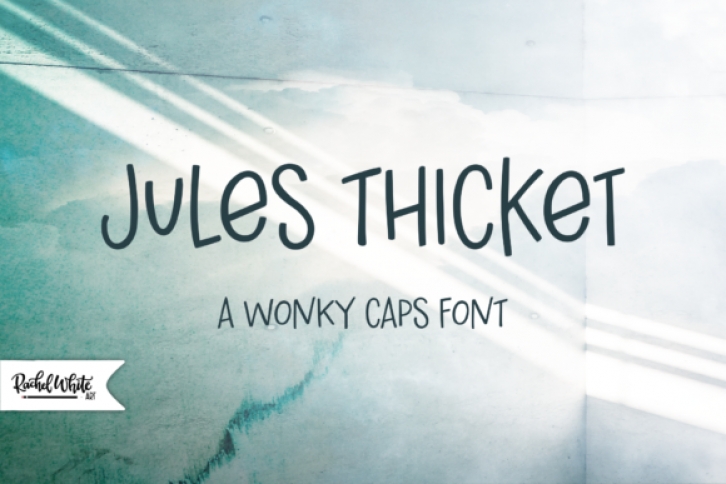
Jules Thicket is a modern, unique sans serif font. With its neat and beautiful arrangement of letters, this typeface will look outstanding in both formal and non-formal designs.